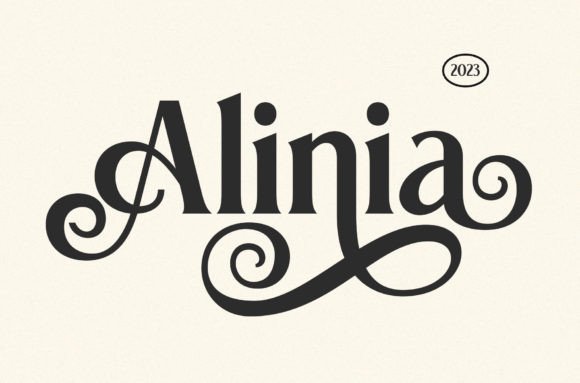
The Elusive Font: A Designer’s Quest for Timeless Elegance
I’ll never forget the countless hours I spent searching for the perfect font for a luxury branding project. My client wanted something that exuded classic sophistication, yet felt modern and fresh. I scoured the internet, tried out dozens of fonts, but nothing seemed quite right. That was until I stumbled upon Alinia Font – a stylish serif font that instantly captured the essence of what I was looking for.
First Impressions: A Love Affair with Alinia
As soon as I opened Alinia Font, I knew I had found something special. Its refined serifs and well-proportioned letterforms screamed elegance and poise. I was immediately drawn to its versatility – perfect for branding, editorial work, and luxury designs. In this review, I’ll share my honest thoughts on what I love about Alinia, its quirks, and how to get the most out of this stunning font.
- ✨ Timeless beauty: Alinia’s classic design ensures it never goes out of style.
- ✅ Versatility: Suitable for a wide range of projects, from luxury branding to editorial work.
- 💫 Elegant serifs: Refined and sophisticated, adding a touch of class to any project.
- 📚 Well-proportioned letterforms: Ensures excellent readability and aesthetics.
While Alinia is an exceptional font, there are a few minor considerations to keep in mind:
- 🤔 Limited availability of swashes: Some users might find the range of swashes a bit restrictive.
- ⚠️ Requires careful kerning: As with any serif font, attention to kerning is crucial for optimal results.
- Experiment with OpenType features, such as stylistic alternates, to add variety to your text.
Alinia Font was designed with the goal of creating a timeless, elegant serif font that would bring a touch of sophistication to any project. Inspired by classic typography, Alinia’s creator aimed to craft a font that would be both refined and versatile. With its beautiful serifs and well-proportioned letterforms, Alinia is a testament to the power of thoughtful design.
Q: What makes Alinia Font unique?
A: Alinia’s unique blend of classic elegance and modern sophistication sets it apart from other serif fonts.
Q: Is Alinia suitable for body text?
A: While Alinia is elegant and refined, it’s best suited for headlines, titles, and short paragraphs. For longer body text, consider pairing it with a complementary font.